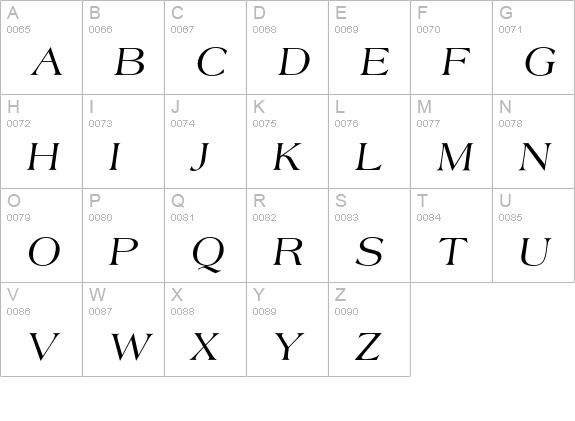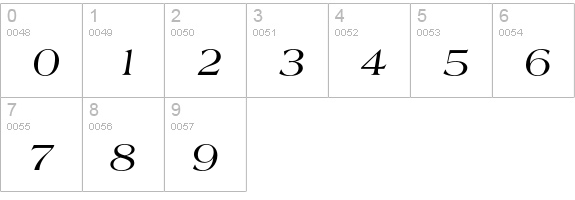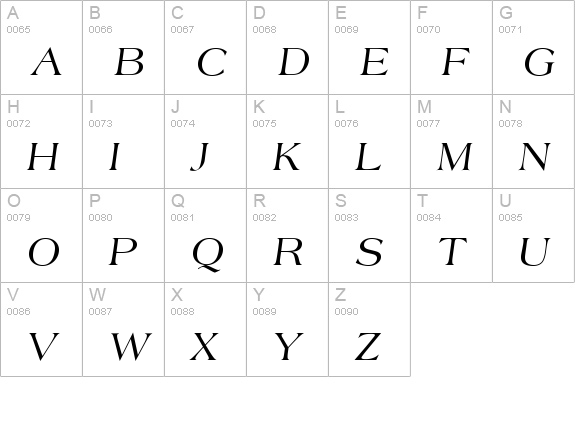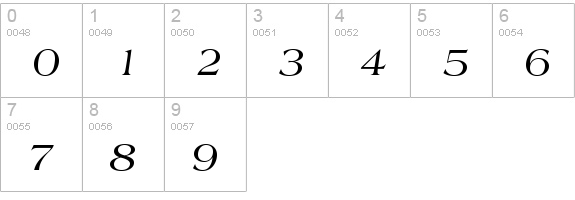
Americana T Regular Italic Font Details
Americana T Regular Italic is the standard, neutral, italic variant in the Americana typeface family \xE2\x80\x94 well suited to general body text, paragraphs, and standard typographic work.
Americana T Regular Italic font is a versatile and stylish typeface that exudes a sense of nostalgia and classic Americana style. Its italicized design adds a touch of elegance and sophistication to any text, making it perfect for a wide range of design projects. This font is perfect for creating eye-catching headlines, stylish logos, and elegant invitations. Its timeless appeal makes it a popular choice for both print and digital designs. Whether you're working on a vintage-inspired project or looking to add a touch of Americana flair to your work, Americana T Regular Italic font is sure to make a statement. The best part is that Americana T Regular Italic font is available for free download at FontsMarket.com. This means you can start using this beautiful typeface in your projects right away, without any cost. Don't miss out on the opportunity to add this versatile and stylish font to your collection today.